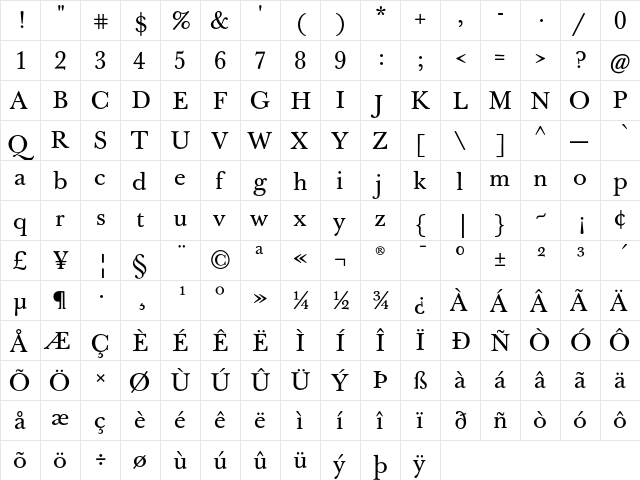
J Baskerville TxN Regular
Design Context for J Baskerville TxN Typeface
J Baskerville TxN is a composed and adaptable typeface that performs quietly and consistently across a wide range of design contexts.